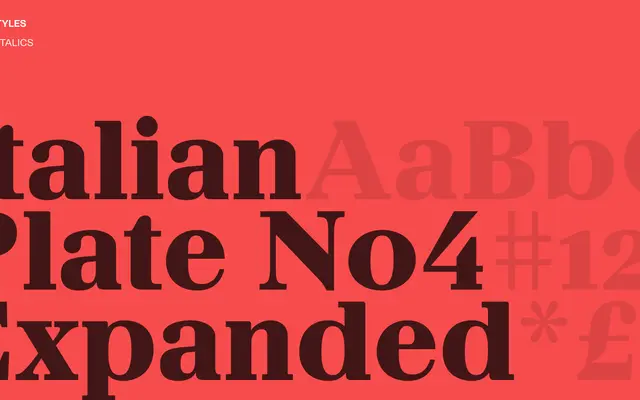
Italian Plate No4 Expanded
Playtype
Italian Plate No4 Expanded specimen from Playtype
An expanded-width grotesque from Playtype, part of the Italian Plate series, suited to display and editorial settings.
Italian Plate No4 Expanded is a wide-set grotesque sans belonging to Playtype's Italian Plate family. The expanded proportions make it well suited to headlines, posters and editorial display contexts where horizontal scale and presence are needed. Page content is sparse, so details on weights and language coverage remain unconfirmed.
The name and expanded descriptor place this firmly in the grotesque sans-serif tradition, with an expanded width variant distinguishing it from the standard cut.